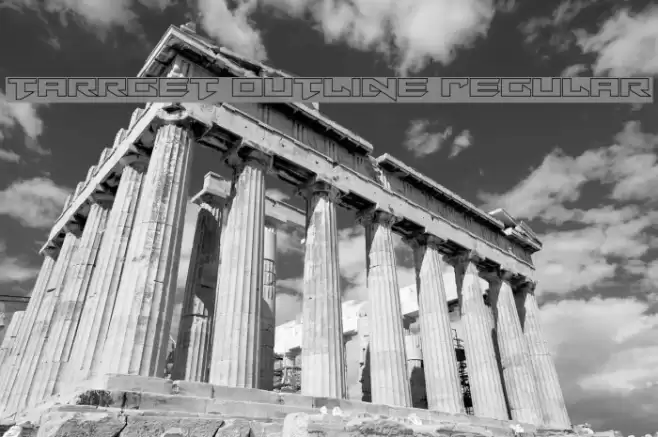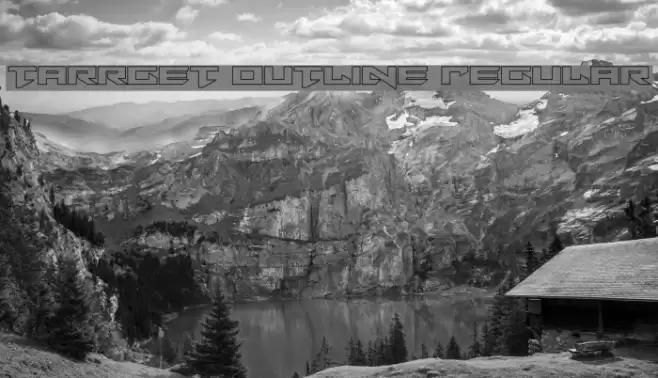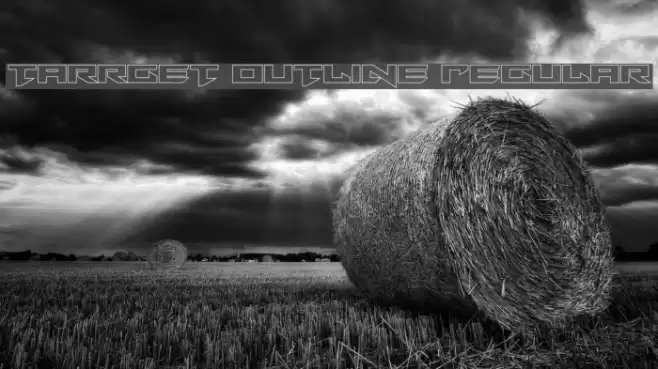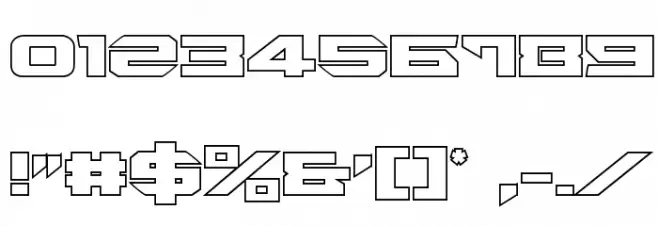
Tarrget Outline Regular Font
Tarrget Outline Regular Description
This font features a bold, geometric outline style with sharp angles and a futuristic aesthetic. The uppercase letters are designed with a consistent height and width, creating a uniform appearance. The lowercase letters mirror the uppercase in style, maintaining the angular and structured look. Numbers and special characters follow the same design principles, ensuring cohesion across all characters. The font's outline nature gives it a modern and edgy feel, suitable for attention-grabbing designs.
A bold, geometric outline font with a futuristic and angular design from Uncategorized fonts.
- Proposed Projects: Ideal for sci-fi themed posters, video game titles, tech branding, and modern logo designs.